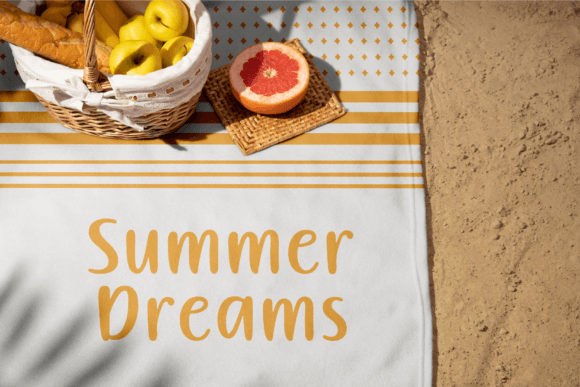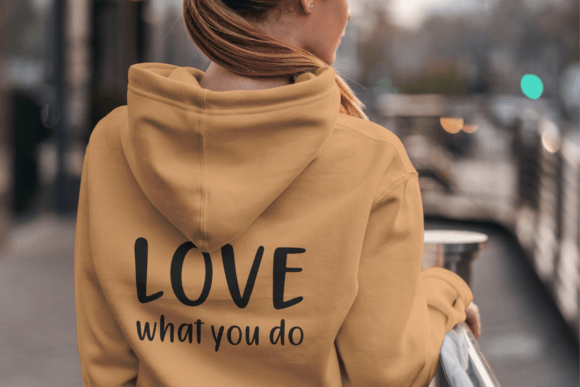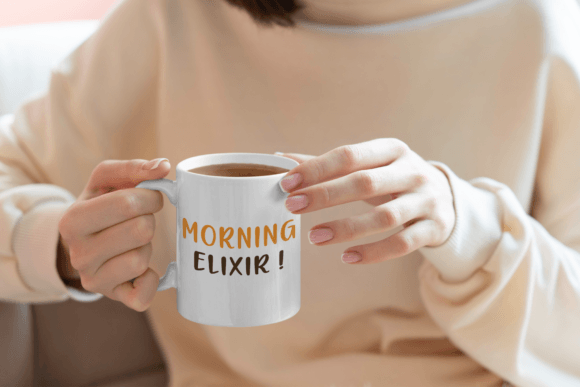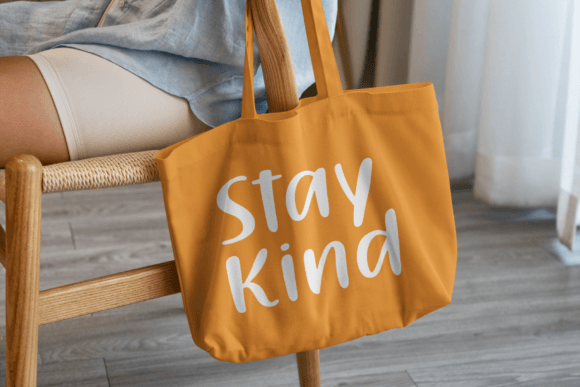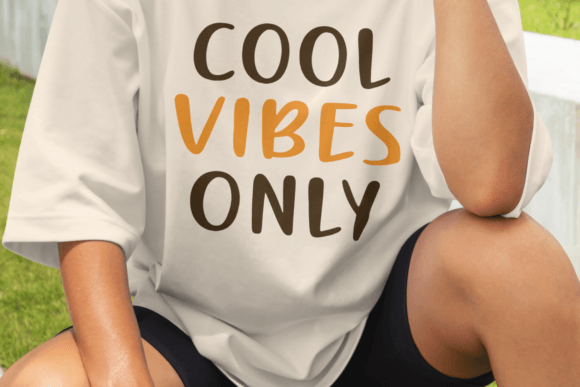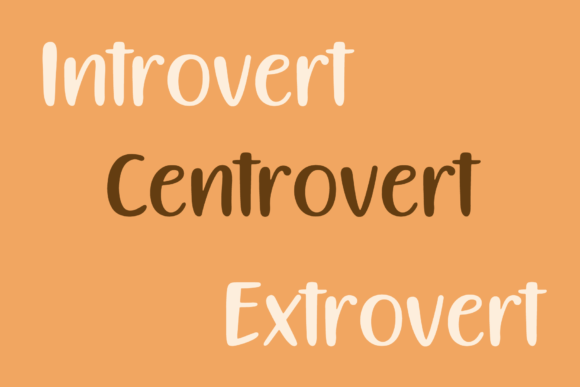
Introduction to Orangetide Font
OrangeTide font is a delightful and charming handwriting font that exudes a sense of smoothness and cuteness.
Its whimsical strokes flow gracefully, capturing the essence of handwritten elegance With a touch of playfulness, OrangeTide infuses a sense of joy and warmth into any design.